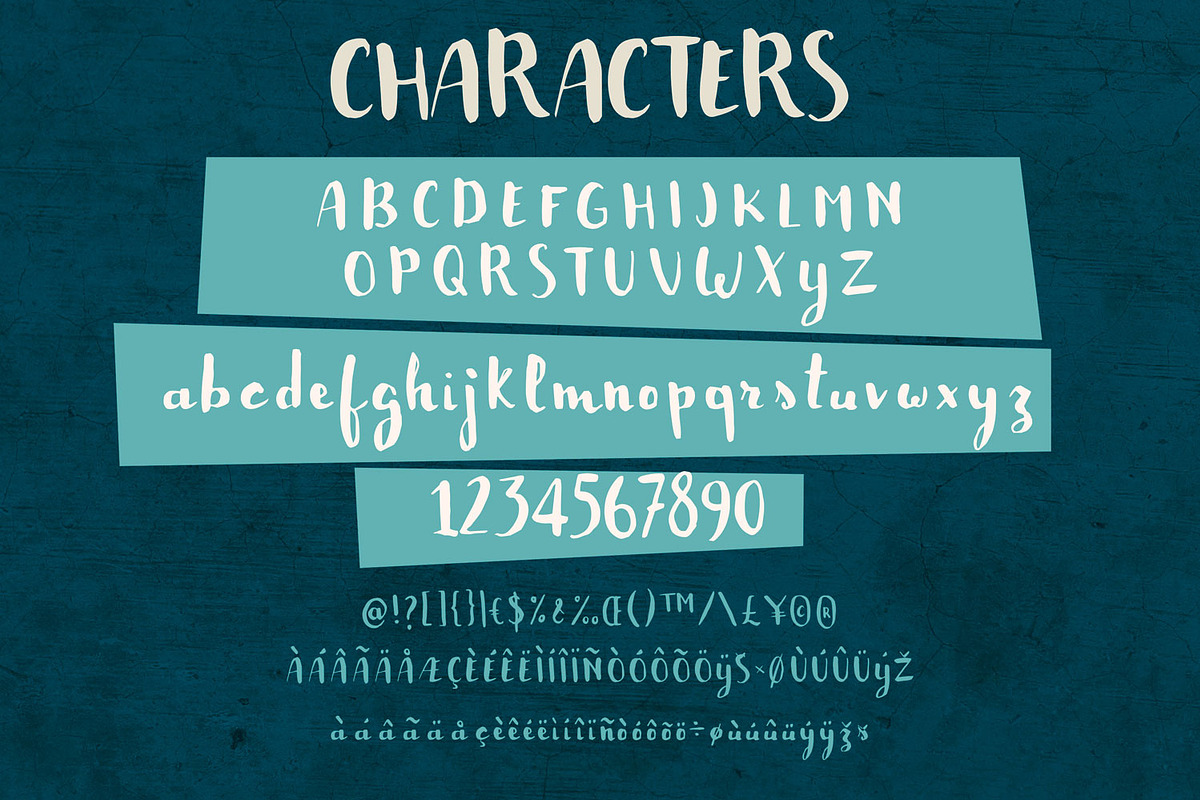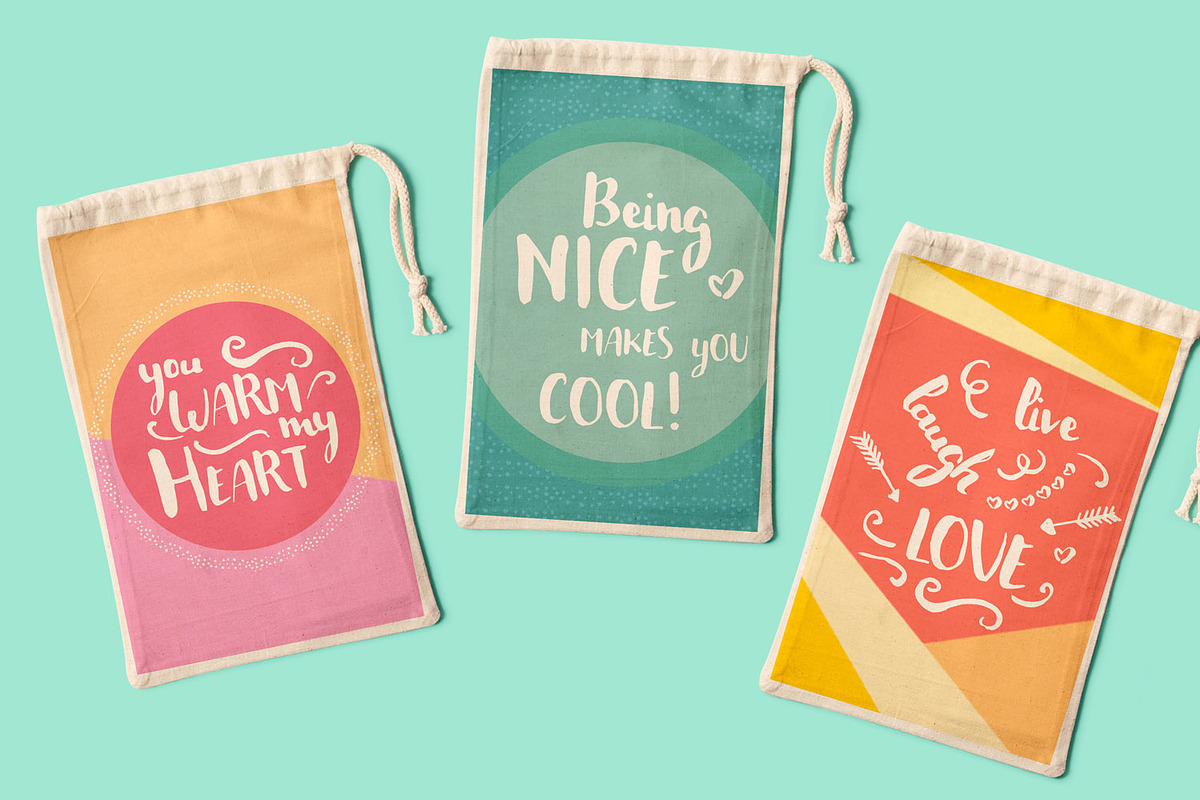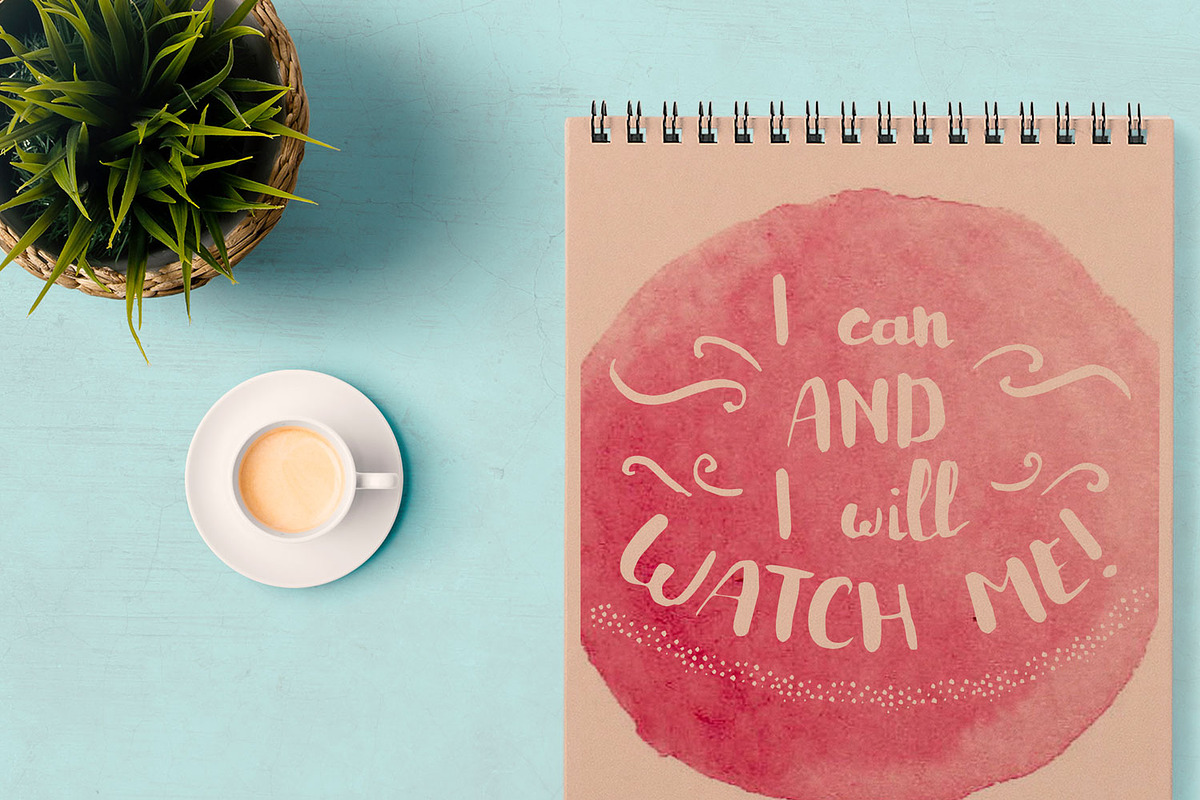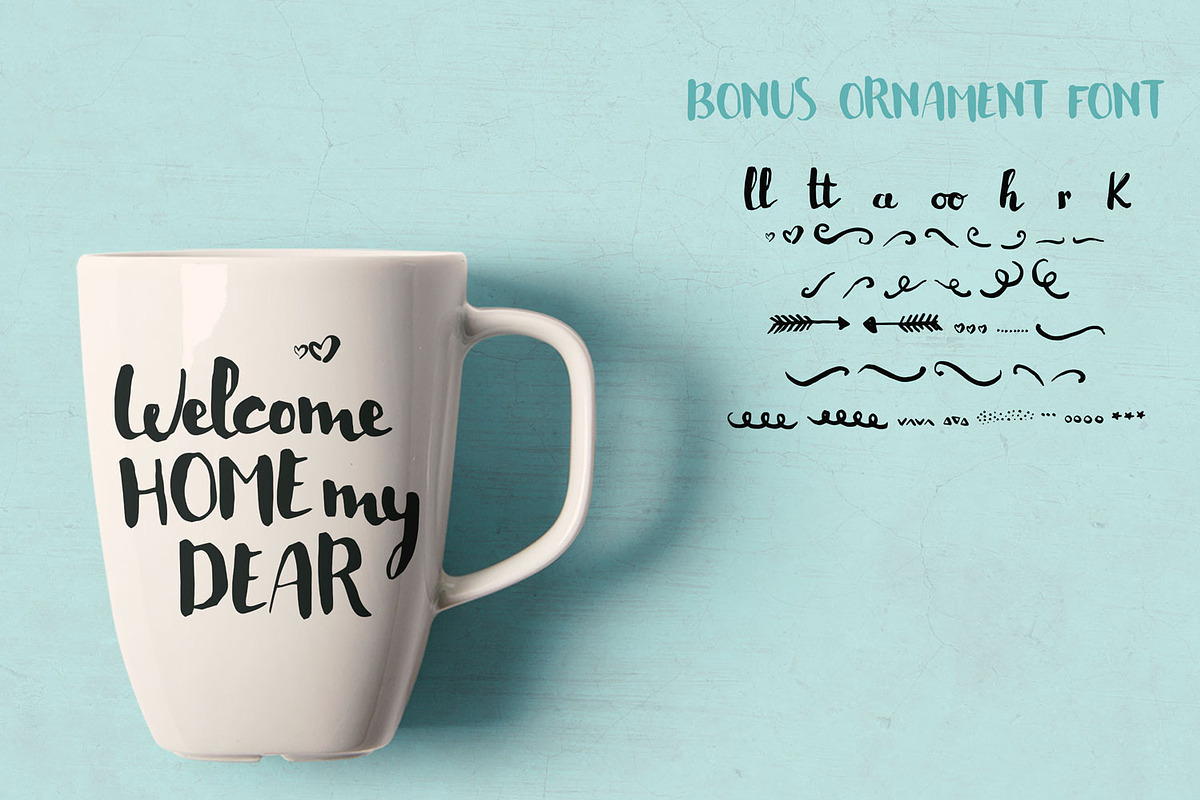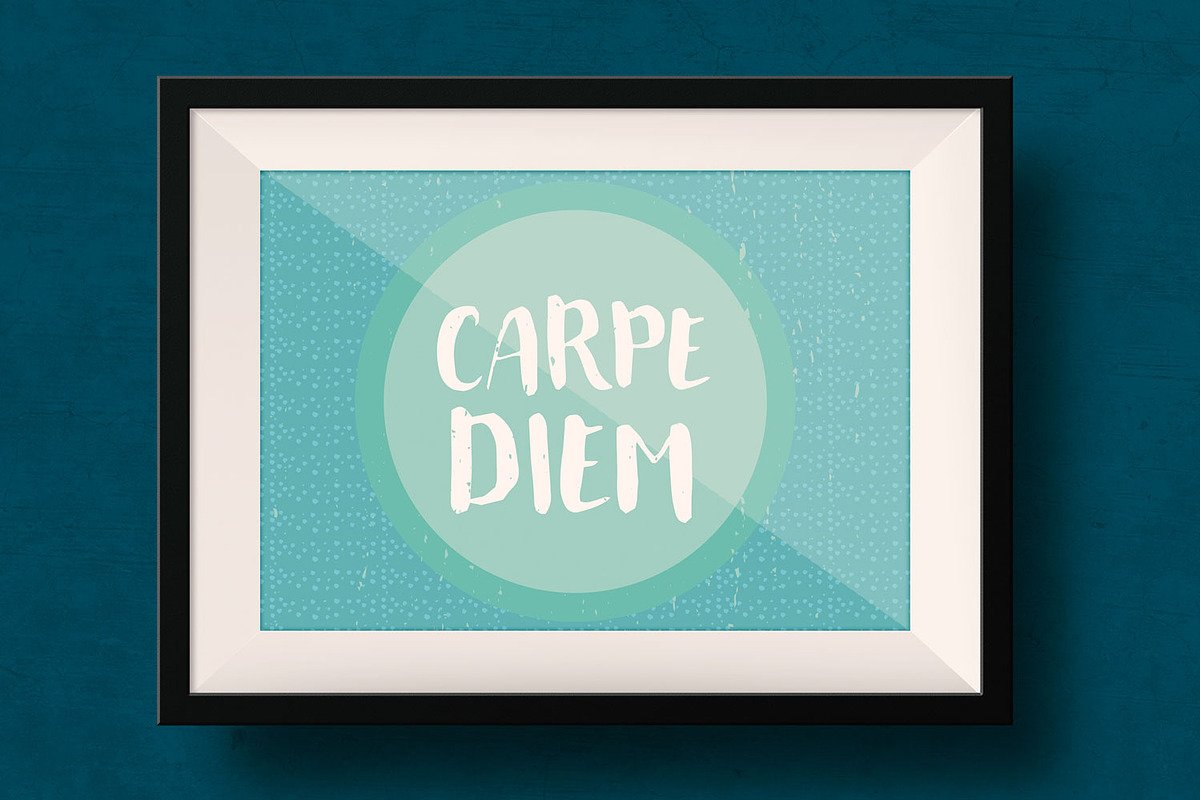
Baballotto font - Bold Brush Font
Baballotto font - Bold Brush Font by PATCHPO is a font selected for branding, posters, packaging, typography.
- Baballotto contains standard characters, lowercase, uppercase, numbers, punctuation, international characters and 40 ornamental glyphs.
Why Baballotto font - Bold Brush Font is worth a look
Baballotto font - Bold Brush Font by PATCHPO fits naturally into Branding, posters, packaging, typography.